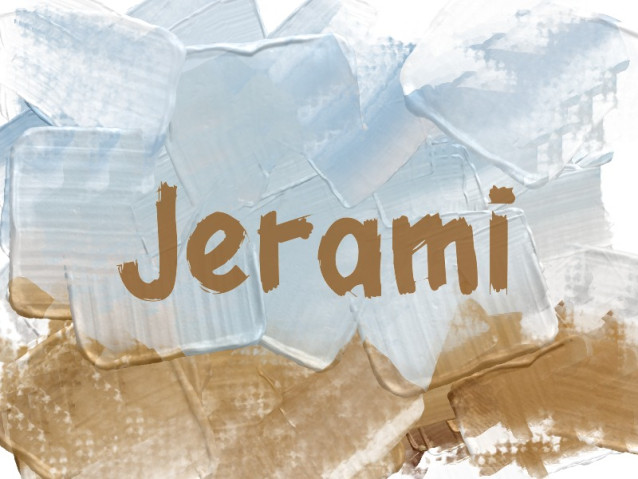
Jerami Font
Jerami Font This font features a bold, hand-drawn aesthetic that captures a sense of raw creativity and organic movement. With its thick, brush-like strokes and slightly uneven edges, it exudes a rustic and friendly vibe, making it perfect for projects that require a personal, human touch. The playful yet grounded letterforms are highly legible, making this typeface an excellent choice for creative branding, eye-catching headlines, or informal poster designs that aim to stand out with a unique, artisanal character.